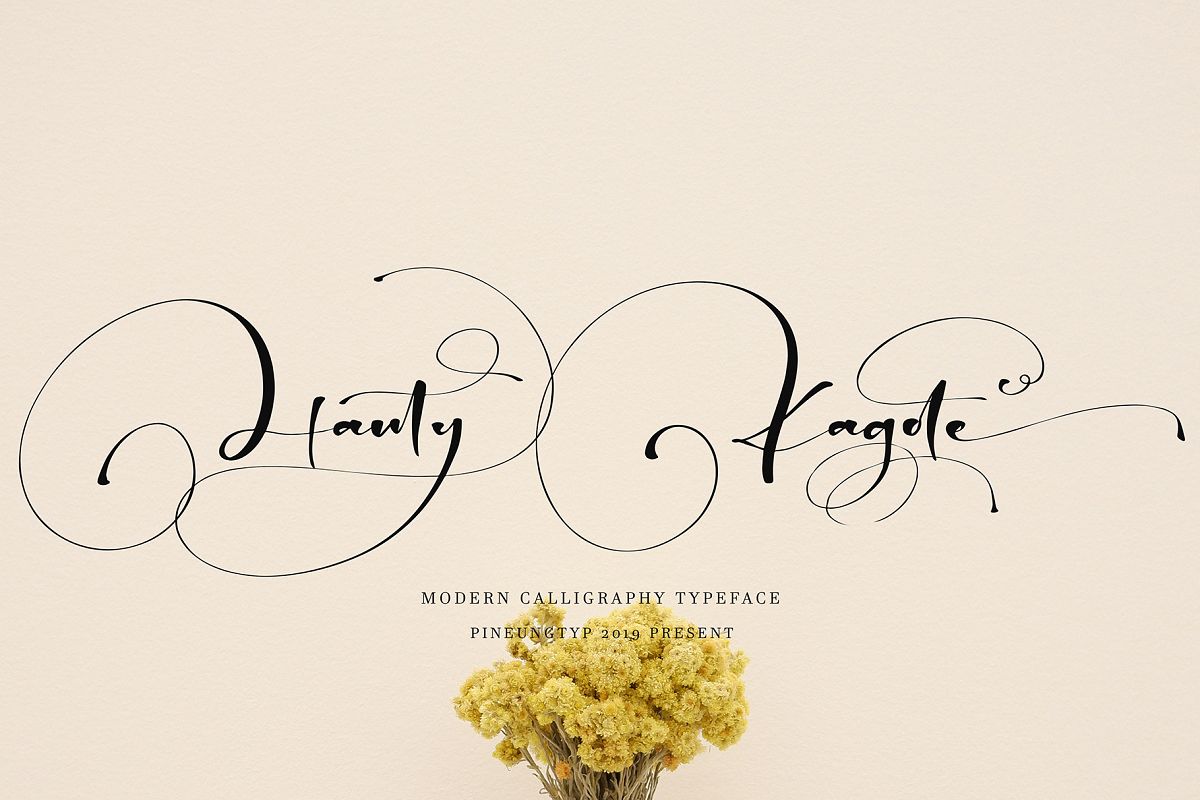
Hanty Kagote
Hanty Kagote font with modern calligraphy style, this font will perfect for many different project ex: quotes, logo, blog header, poster, banding, fashion, apparel, letter, invitation, stationery, etc...